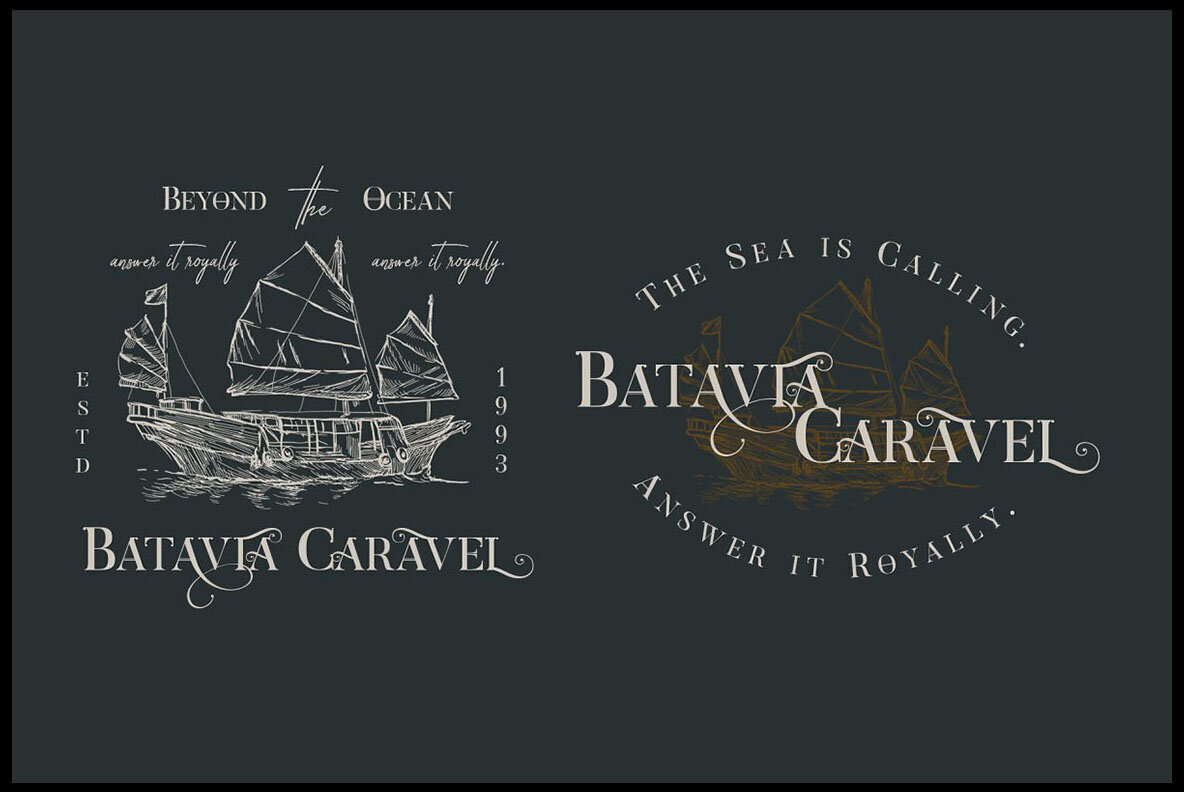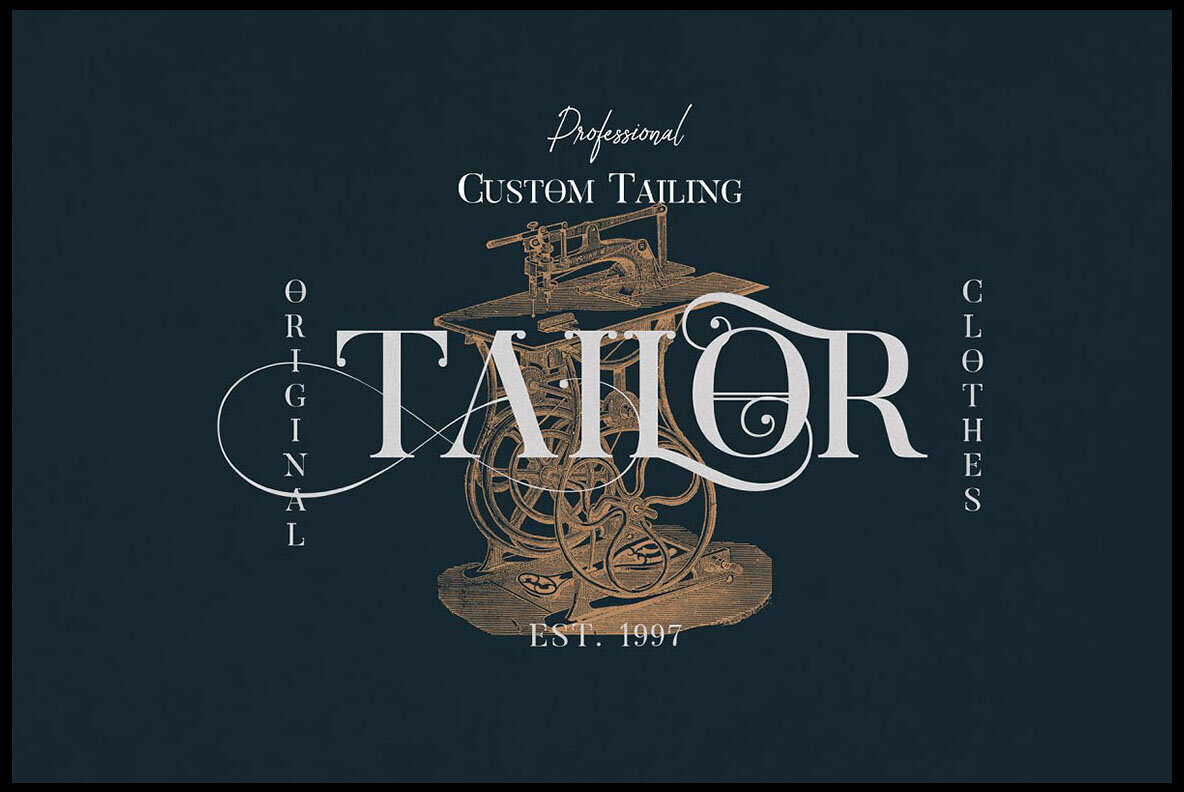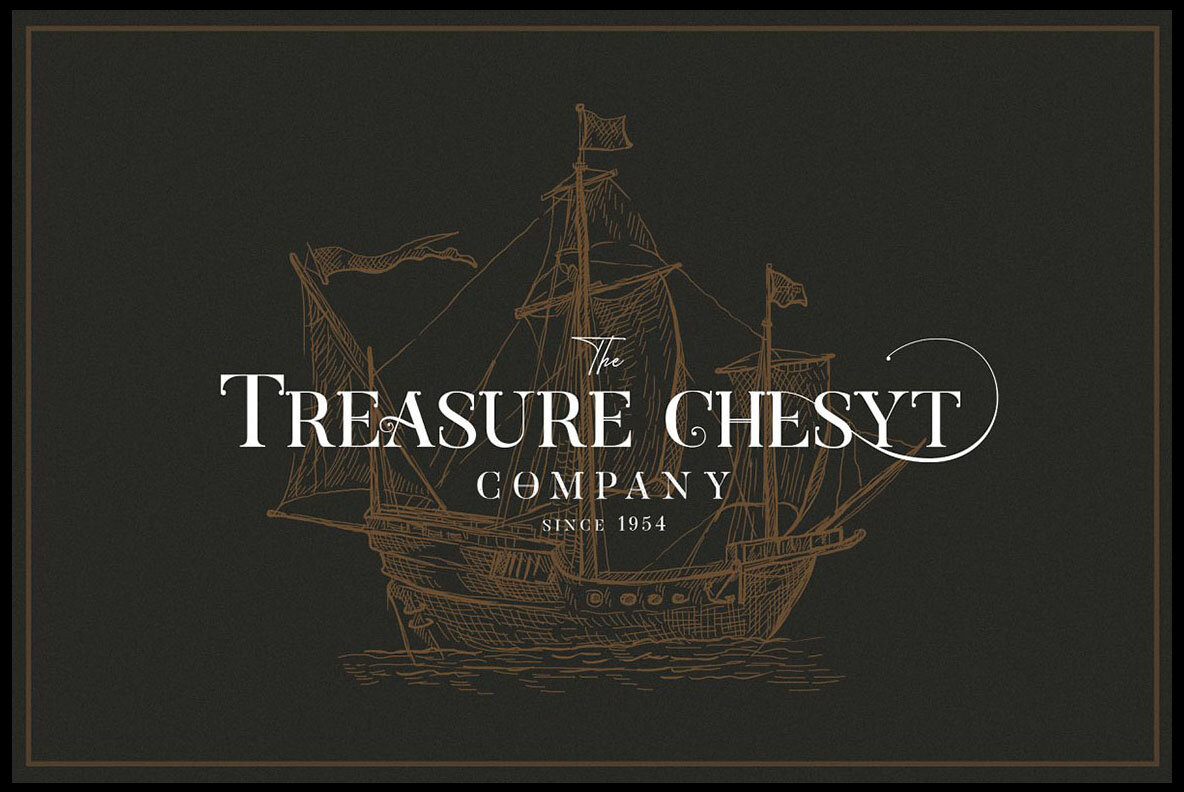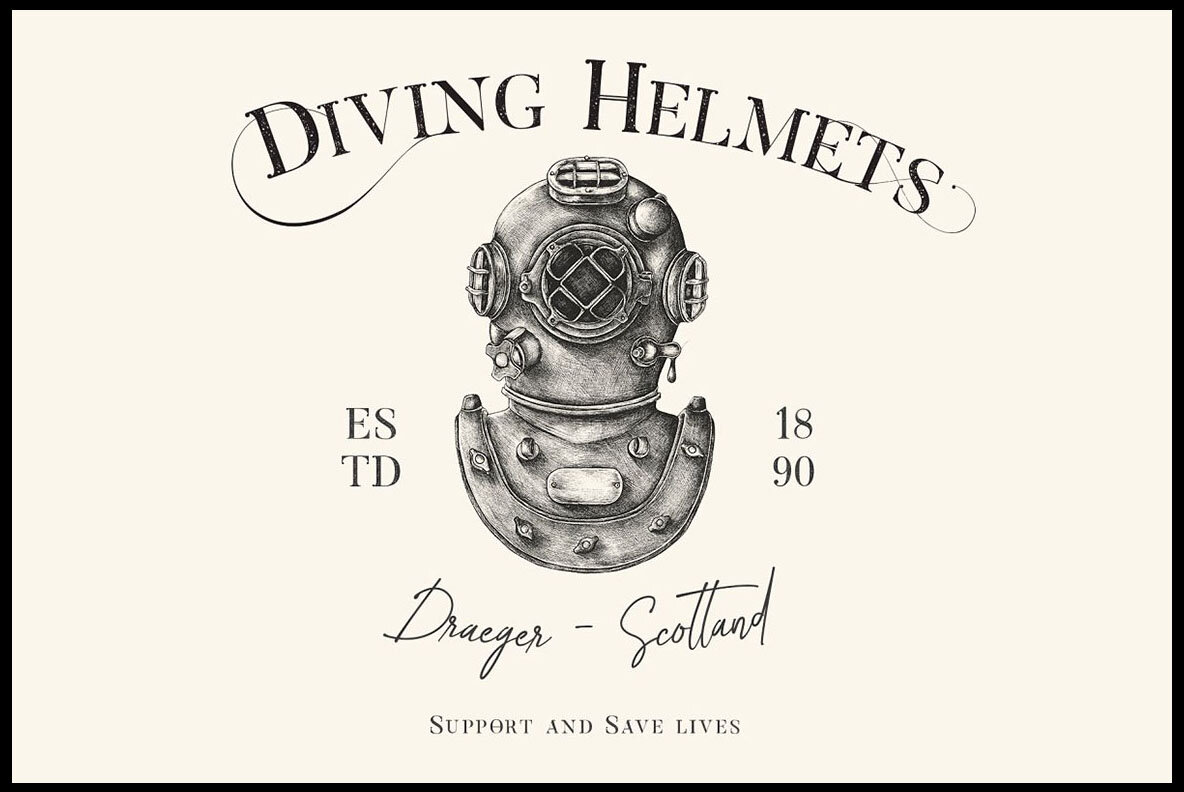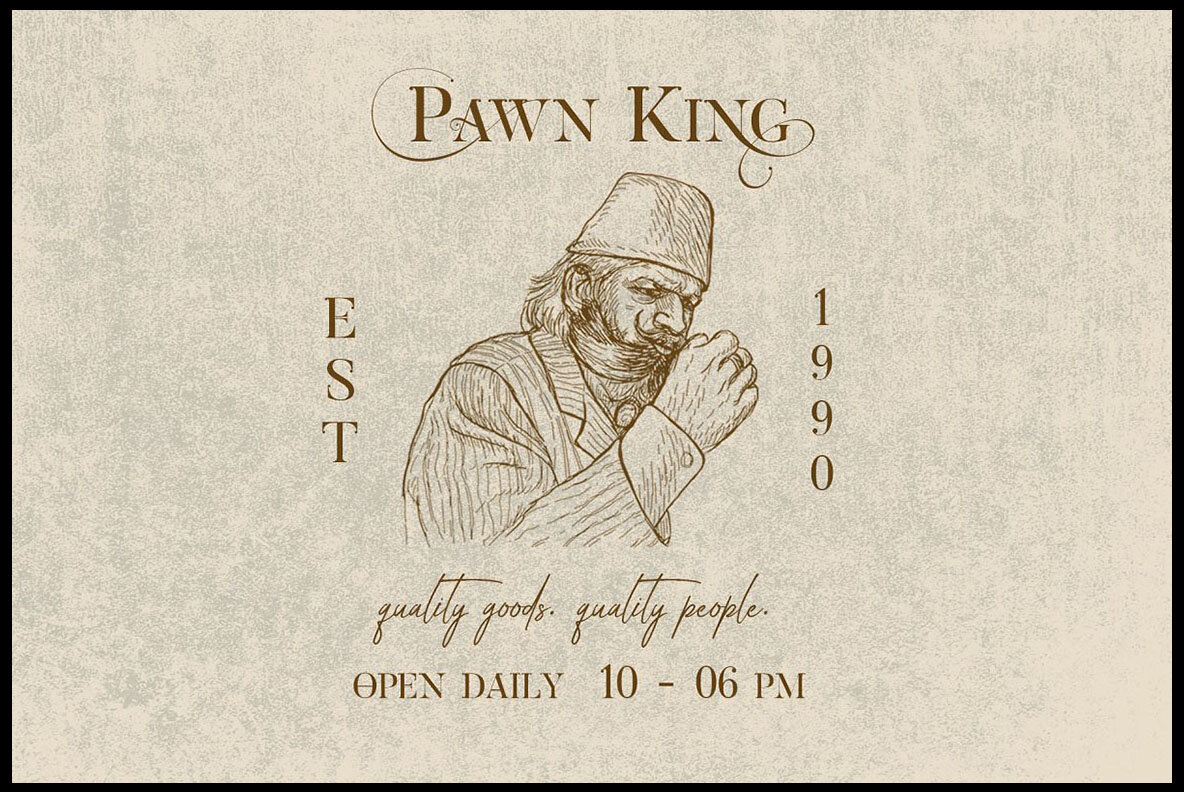
Avital Font
Avital by Peter Olexa is a font duo inspired by vintage decorative letters and cards. Featuring a blend of ornamental vintage styles and numerous swashes, this font is perfect for creating realistic headers. Avital is a versatile choice for branding and advertising, offering a range of alternate characters, ligatures, and multilingual support. The package includes a regular and rough serif version, alongside a complementary handwritten script font that pairs beautifully with the serif for an authentic vintage look.Avital: Vintage Decorative Serif and Script Font Duo